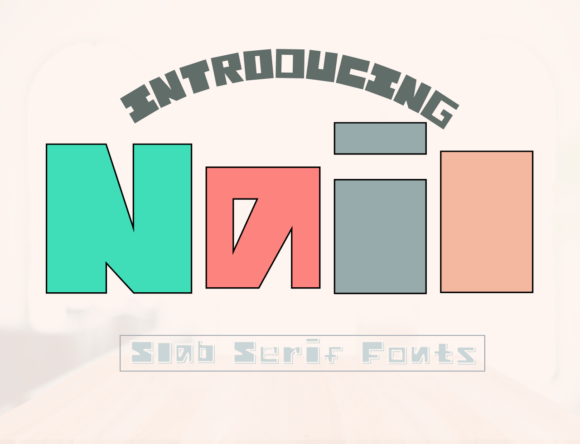
Nail: A Bold and Assertive Slab Serif Font for Every Project
When it comes to choosing the right font for a design project, the impact of typography cannot be overstated. Nail is a standout choice in the world of slab serif fonts, offering a bold and assertive presence that commands attention. Whether you're working on a branding campaign, a website, or a print piece, Nail has the potential to elevate your work and make it stand out from the crowd.
The strength of Nail lies in its clean lines and strong structure. This slab serif font is designed with a sense of confidence and clarity, making it ideal for projects that require a strong visual identity. Its thick strokes and consistent weight give it a commanding presence, while the subtle details in the serifs add a touch of sophistication. This balance of power and elegance makes Nail a versatile tool for designers across various industries.
Why Nail Stands Out Among Slab Serif Fonts
Slab serif fonts are known for their boldness and readability, but not all of them offer the same level of versatility as Nail. Unlike some more traditional slab serifs that may feel outdated or overly formal, Nail brings a modern edge to the genre. Its contemporary design allows it to fit seamlessly into both digital and print environments, making it a valuable addition to any designer's font library.
One of the key features that sets Nail apart is its adaptability. It works well in a variety of contexts, from headlines and logos to body text and display elements. The font’s legibility at different sizes ensures that it remains effective whether used in a large banner or a small label. This flexibility makes it an excellent choice for projects that require a consistent visual language across multiple formats.
Another advantage of Nail is its ability to convey a range of tones and moods. Depending on how it's used, the font can feel professional, playful, or even nostalgic. This versatility allows designers to experiment with different styles and create unique visual identities that reflect the personality of their brand or message.
Applications of Nail in Modern Design Workflows
In today’s fast-paced design landscape, having a reliable and adaptable font like Nail can make a significant difference. From web design to packaging, Nail offers practical benefits that cater to the needs of modern creators. Its bold appearance is particularly effective in digital interfaces, where it can draw attention to key elements such as call-to-action buttons, headings, or navigation menus.
For print projects, Nail adds a sense of authority and professionalism. It’s commonly used in editorial layouts, advertisements, and corporate materials where a strong visual statement is needed. The font’s clean design also makes it suitable for infographics and data visualization, where clarity and impact are essential.
In the realm of branding, Nail can help establish a distinct identity. Its boldness and modern aesthetic make it a great fit for startups, tech companies, and creative agencies looking to make a strong first impression. By incorporating Nail into their visual assets, brands can communicate confidence and innovation without sacrificing readability or style.
Considerations When Using Nail
While Nail is a powerful font, it’s important to use it thoughtfully. Because of its bold nature, it can easily overwhelm a design if not balanced properly. Designers should consider the overall composition and ensure that other elements—such as color, spacing, and supporting typefaces—complement the font rather than compete with it.
Additionally, the context of the project plays a role in determining whether Nail is the right choice. For instance, while it works well for high-impact designs, it may not be the best option for long-form text due to its heavy weight. In such cases, pairing Nail with a lighter or more subdued font can help maintain visual harmony and readability.
Another consideration is the audience. Nail’s assertive style may resonate more with certain demographics or industries than others. For example, it might be ideal for a luxury brand aiming to project strength and exclusivity, but less appropriate for a minimalist or eco-friendly business that prefers a more subtle approach.
Best Practices for Incorporating Nail into Your Projects
To get the most out of Nail, start by experimenting with different weights and sizes. Many font families include variations such as regular, bold, and italic, which can add depth and interest to your design. Using these variations strategically can help create a dynamic visual hierarchy that guides the viewer’s eye through the content.
Pairing Nail with complementary typefaces is another effective strategy. For example, combining it with a sans-serif font can create a contrast that enhances readability and adds visual appeal. Alternatively, using it alongside a more traditional serif font can evoke a sense of timelessness while maintaining a modern edge.
Finally, don’t be afraid to push the boundaries of what Nail can do. Its bold and assertive character opens up opportunities for creative expression, whether you’re designing for a fashion brand, a tech startup, or a nonprofit organization. With the right approach, Nail can become a signature element that defines your work and sets it apart from the competition.